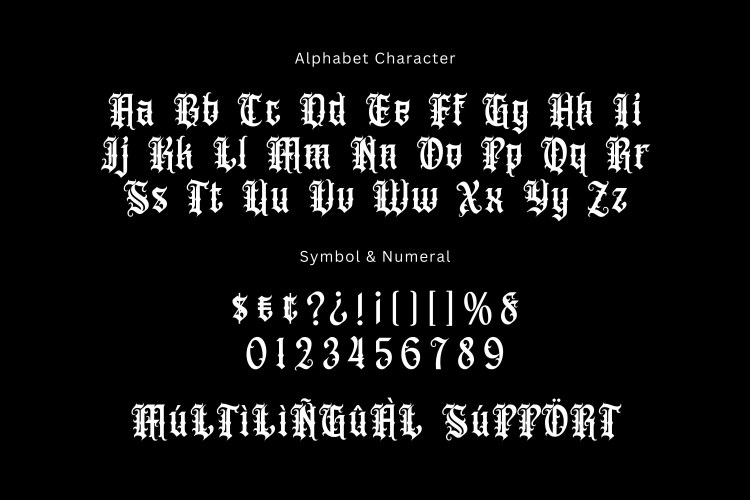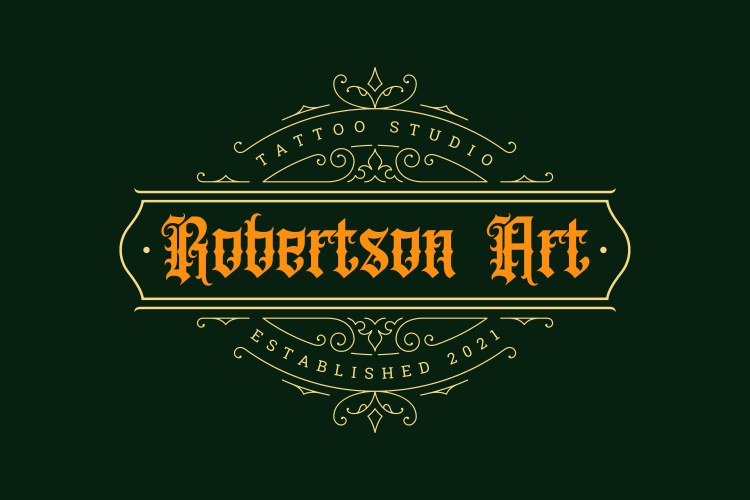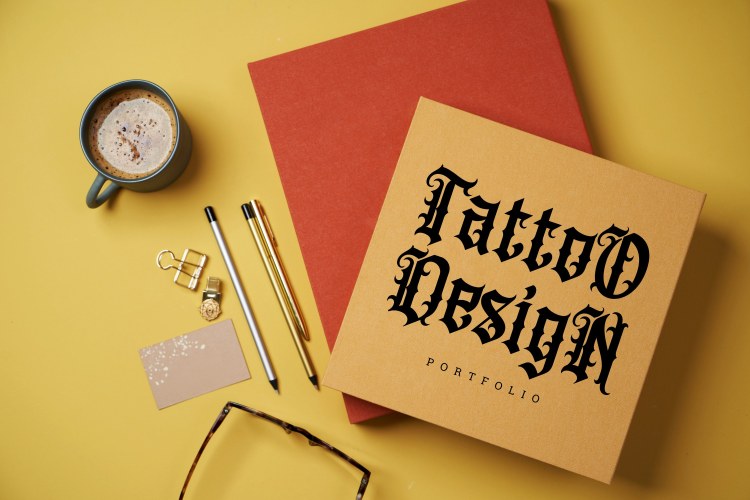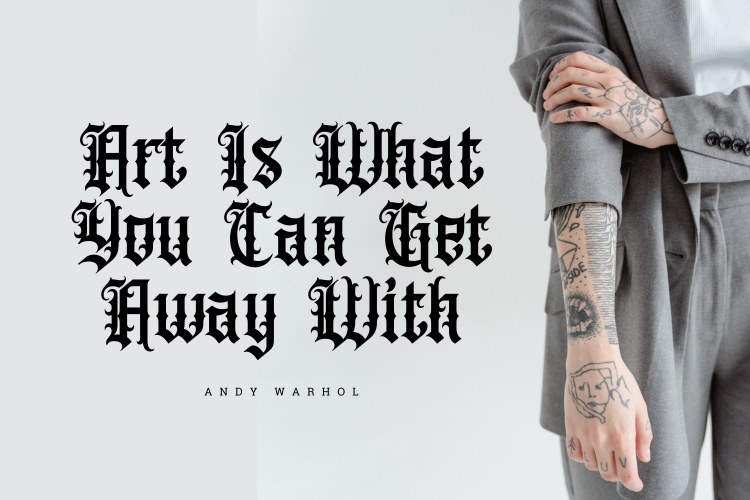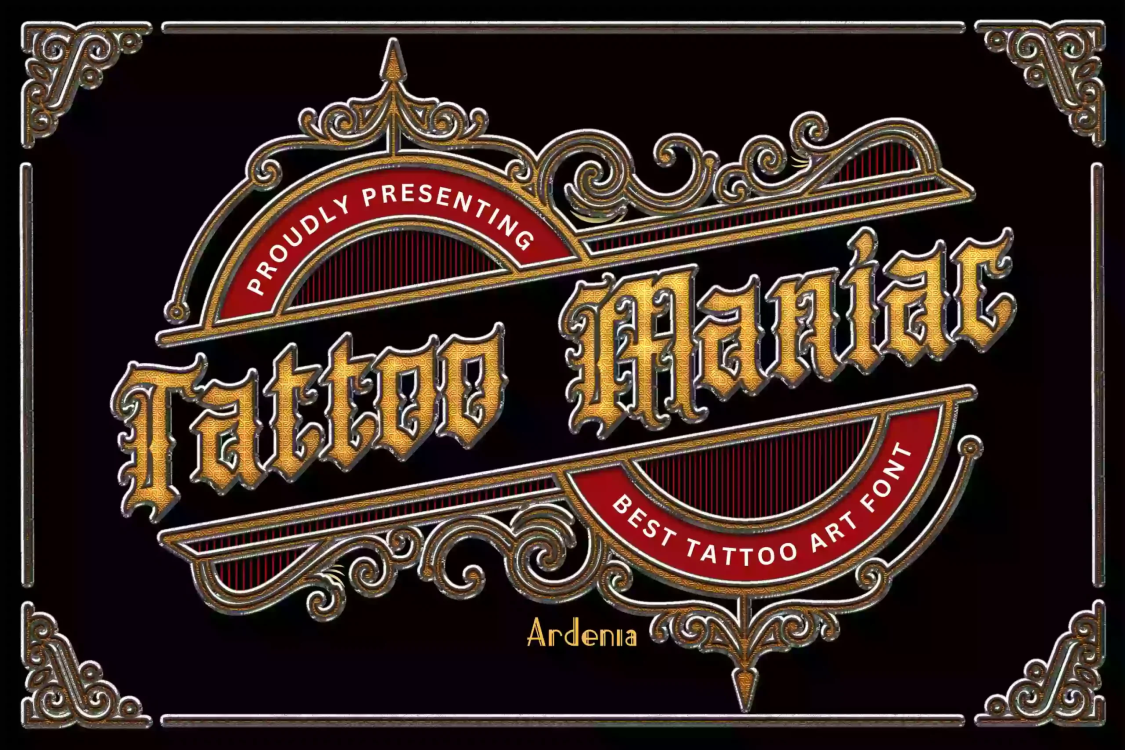
Tattoo Maniac Font
Tattoo Maniac – Tattoo Font it matches applies in some designs such as the logotype, brand, packaging, quotes, poster, t-shirt, invitation and more custom design. The features uppercase, lowercase, numeral, punctuation & symbol, multilingual support.
Where Tattoo Maniac Font works best
Event & seasonal design
Tattoo Maniac Font suits themed posters, holiday campaigns, festival identities and party invitations.
Game & entertainment titles
Decorative letterforms are a natural fit for game logos, movie-style titles and merch.
Packaging accents
Use Tattoo Maniac Font sparingly for product names or flavour labels that need personality.
What is Tattoo Maniac Font good for?
Tattoo Maniac Font is a Decorative Fonts typeface tagged Branding, Decorative, Decorative Fonts, Packaging. It works well for headlines, logos, posters, social media graphics and branding projects that need a distinctive decorative fonts look.